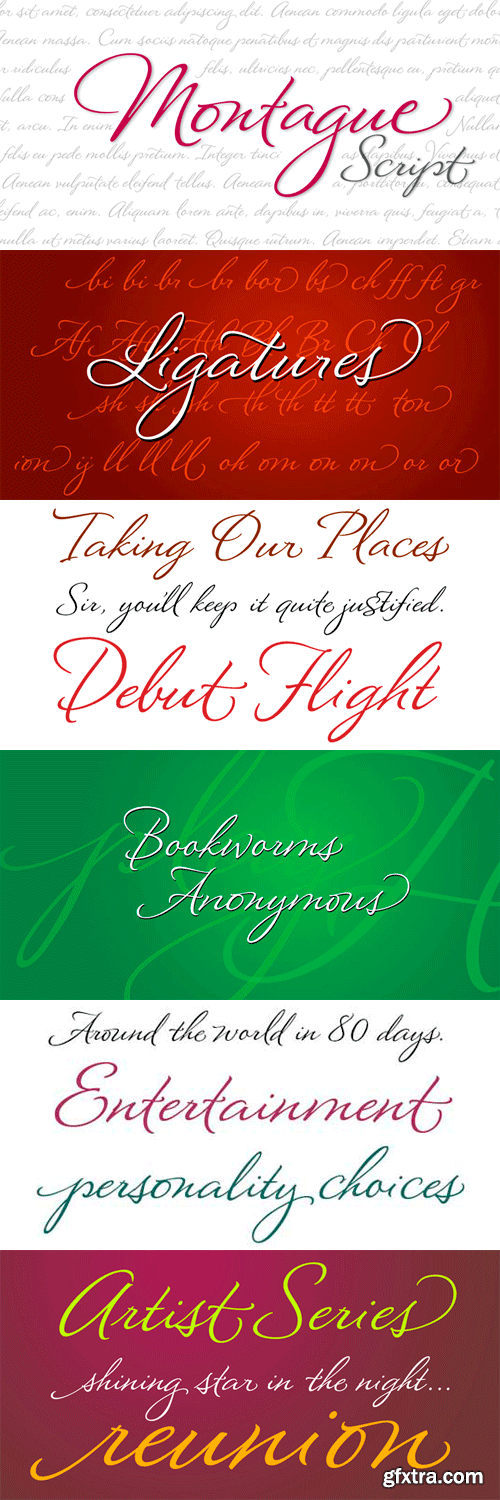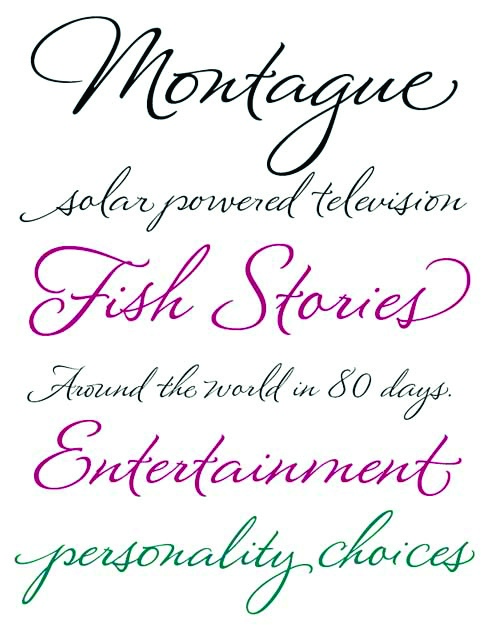
- Montague Script takes its name from a small hilltown of western Massachusetts rich in culture and history. I lived in this beloved community for a number of years and it’s where I first began my study of calligraphy and lettering. While most brush scripts take their cue from mid-twentieth century samples, Montague Script is a fresh, contemporary alternative. It comes directly from lettering written with a #3 sable brush on smooth vellum and is digitized with the same sensibility a lettering artist writes with. Montague reflects a dynamic interplay between form and rhythm not usually associated with type. Words suggest a baseline, yet are not bound by it. Beginnings, endings, alternates and ligatures come in as needed while you type. Many more alternates are available in the glyph palette of most current graphic software. Exuberant swash versions of upper and lowercase letters, as well as ligatures can be accessed through both the type and glyph palettes. Montague Script is a natural for advertising, point of purchase displays, packaging and logo design, cards, invitations, journals and much more. You will be delighted at how well it can dress up a project and how easily it sets.